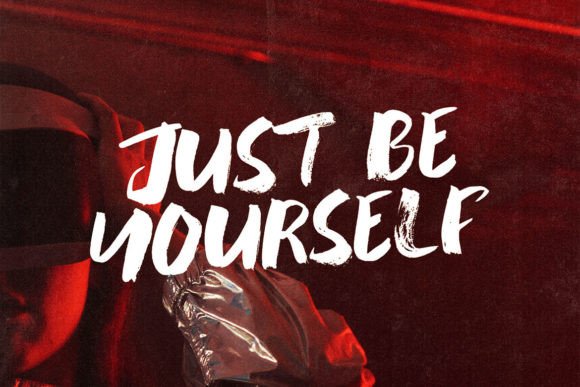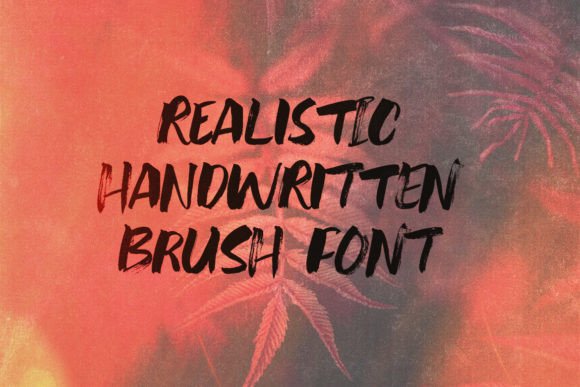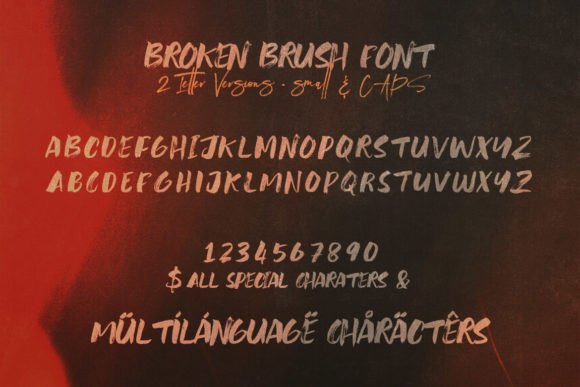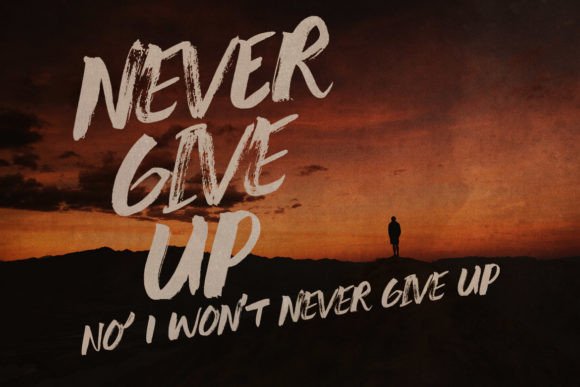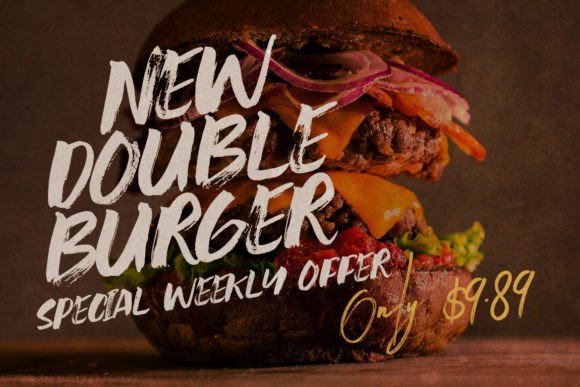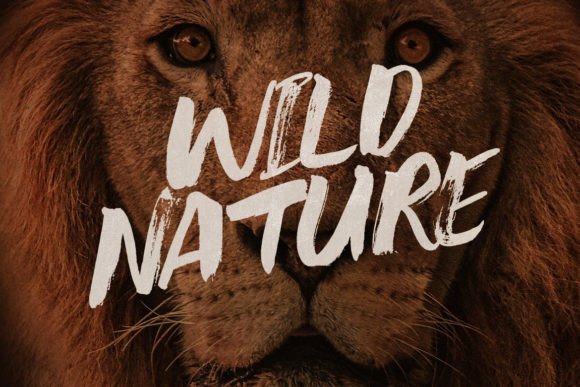
Introducing Broken Font: The Ultimate Display Font for Grunge and Artistic Designs
Are you tired of using the same old fonts in your designs? Look no further! Broken Font is here to shake things up with its unique blend of bold, crazy, and artistic vibes. This display font is perfect for designers and crafters who want to add a touch of grunge or artistic flair to their projects.
What Makes Broken Font Special?
Broken Font is a fun and crazy display font that boasts a cool brush texture, giving it a distinctive and eye-catching look. Its bold and edgy design makes it perfect for creating grunge or artistic designs that will instantly enhance your projects. Whether you’re working on a logo, poster, or social media graphic, Broken Font is sure to make a statement.
Key Features of Broken Font
- Unique Brush Texture: Broken Font features a cool brush texture that gives it a hand-crafted look and feel.
- Bold and Edgy Design: This font is perfect for designers who want to create bold and eye-catching designs.
- Grunge and Artistic Vibes: Broken Font is ideal for grunge or artistic designs that require a touch of edginess.
- Instantly Enhances Designs: This font is designed to instantly elevate your designs and make them stand out.
Why Designers and Crafters Love Broken Font
Designers and crafters love Broken Font for its versatility and ease of use. This font can be used for a wide range of projects, from logos and posters to social media graphics and more. Its bold and edgy design makes it perfect for creating designs that require a touch of attitude and personality.
Tips for Using Broken Font Effectively
Here are some tips for using Broken Font effectively in your designs:
- Use it as a Statement Font: Broken Font is perfect for making a statement in your designs. Use it as a headline font to grab attention and draw the eye.
- Pair it with Other Fonts: Broken Font can be paired with other fonts to create a unique and interesting contrast. Try pairing it with a clean and simple font for a bold and eye-catching look.
- Experiment with Colors: Broken Font looks great in bold and bright colors. Experiment with different colors to find the perfect look for your design.
In conclusion, Broken Font is a must-have font for designers and crafters who want to add a touch of grunge or artistic flair to their projects. Its unique blend of bold, crazy, and artistic vibes makes it perfect for creating eye-catching designs that will instantly enhance your projects. With its ease of use and versatility, Broken Font is sure to become a favorite in your design arsenal.
Get Ready to Take Your Designs to the Next Level